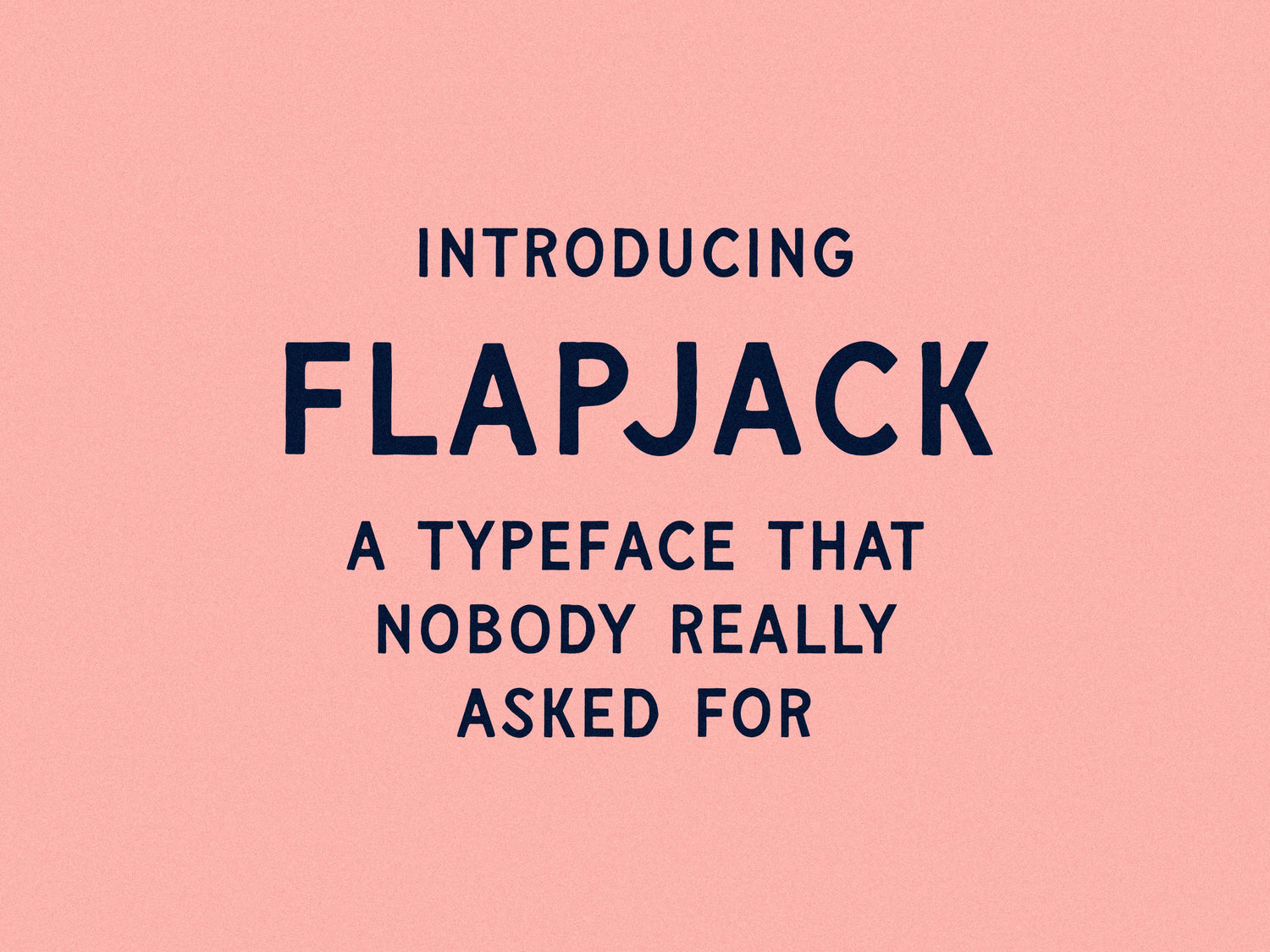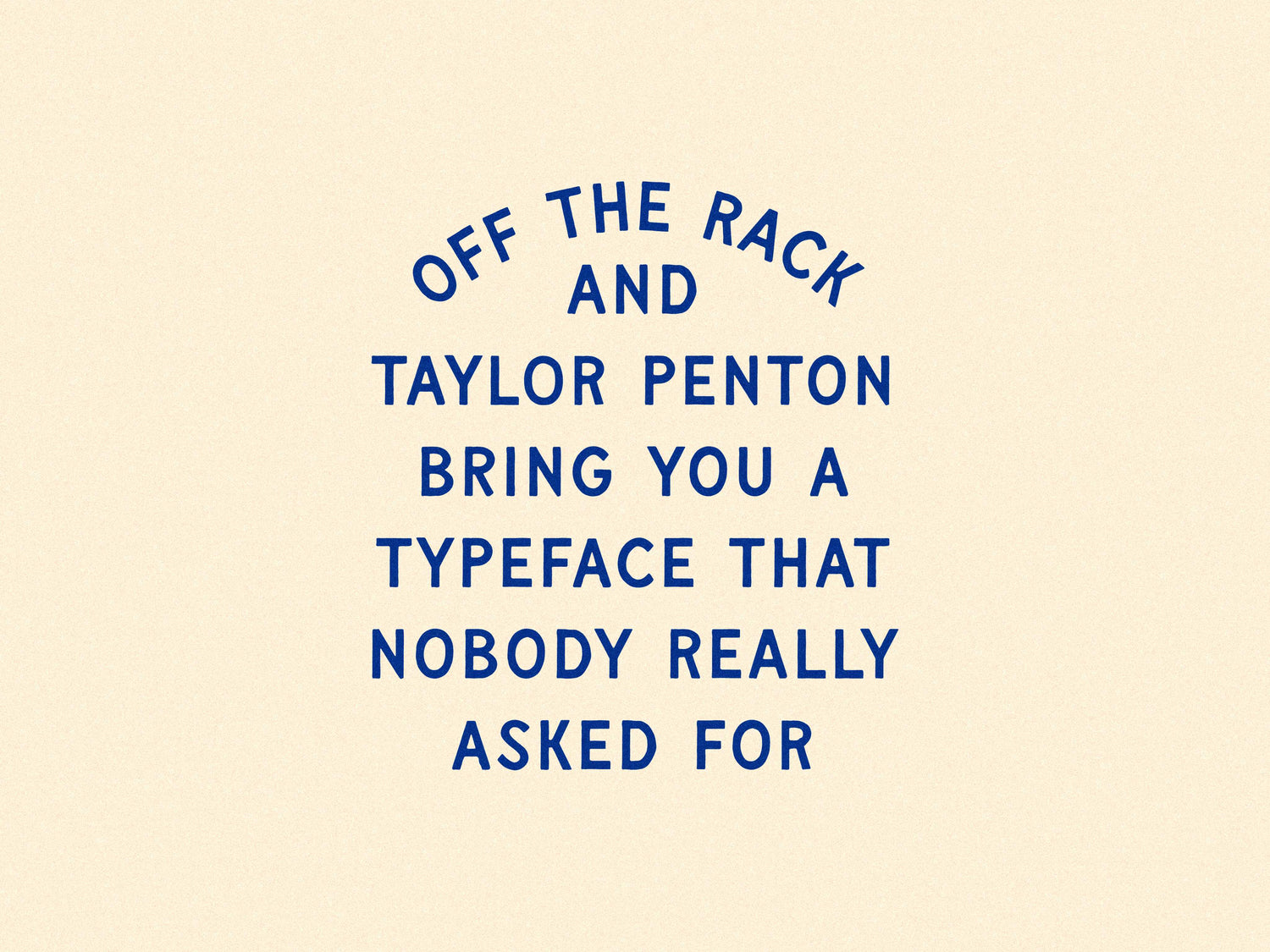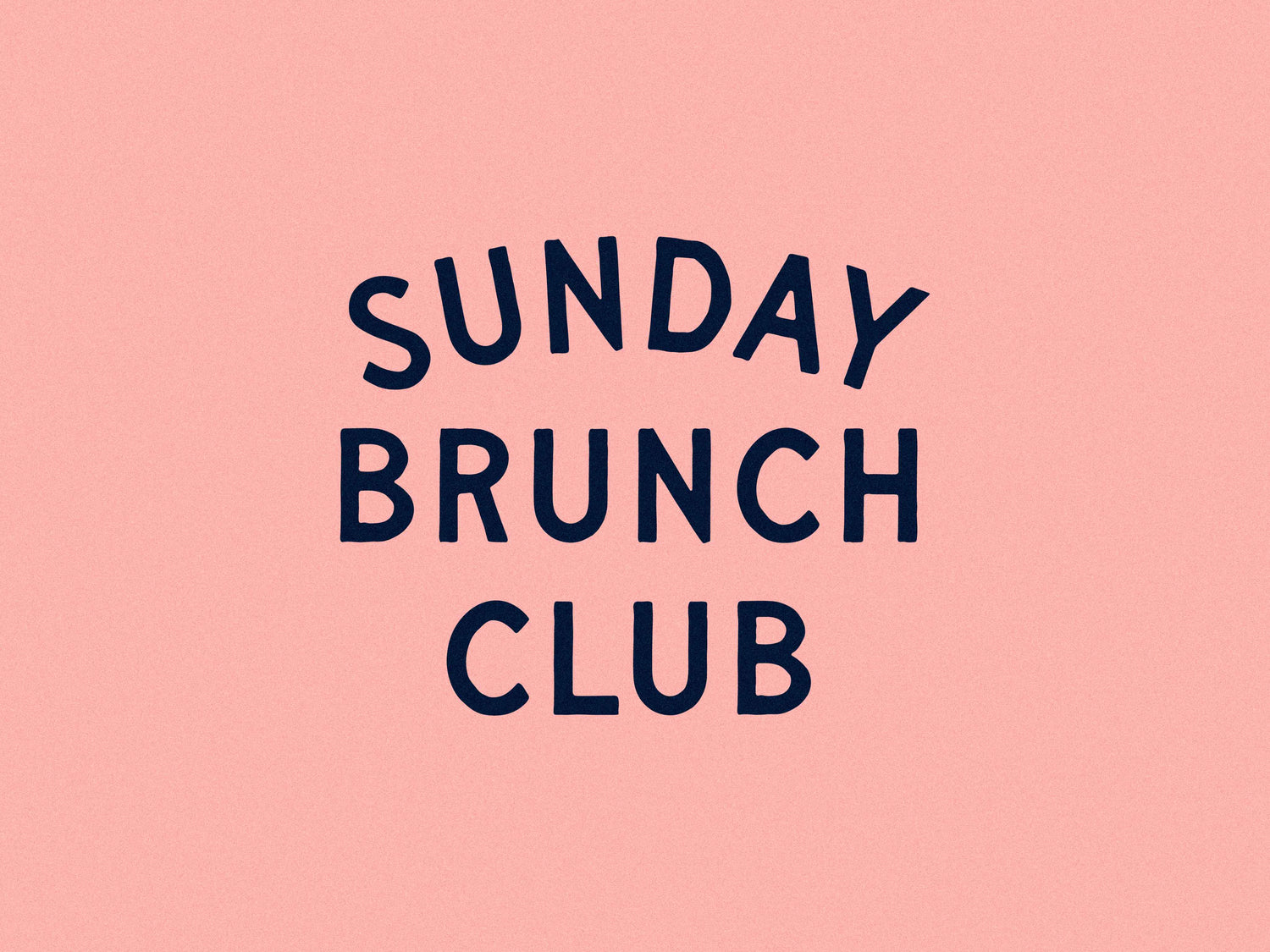
Flapjack
It’s with great honor that Joe and I unveil Flapjack, our latest font creation that looks like it stepped out of a 1920s billboard. We hand-drew each letter, inspired by old shop signs and billboards.
Flapjack fits in everywhere, from huge signs to tiny menus. And if you use it for your auntie’s pet spa logo, we won’t judge you any more than we usually do